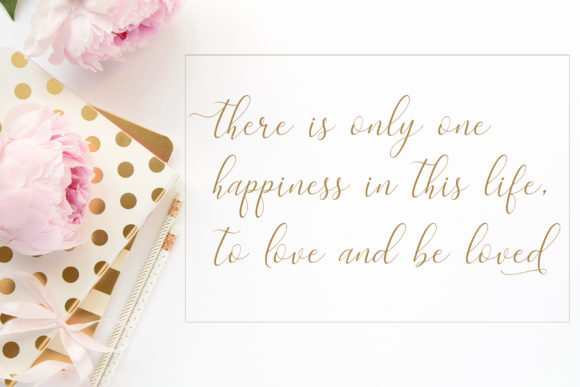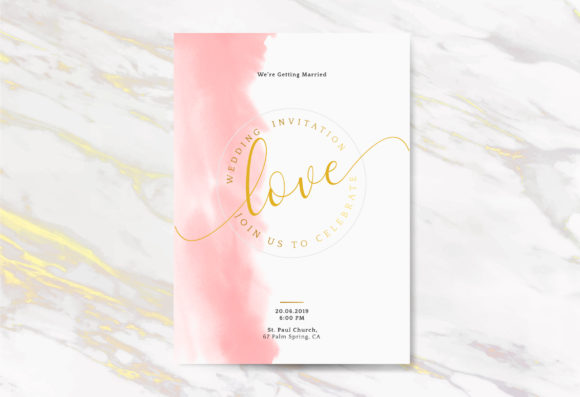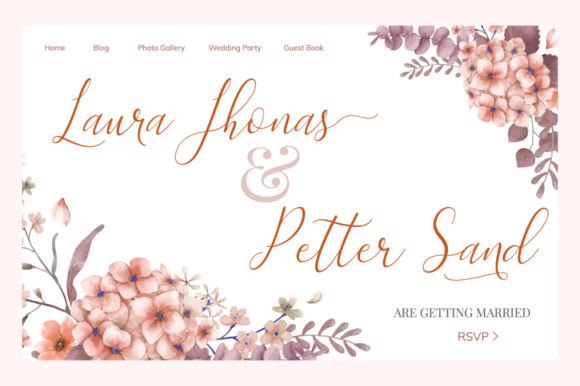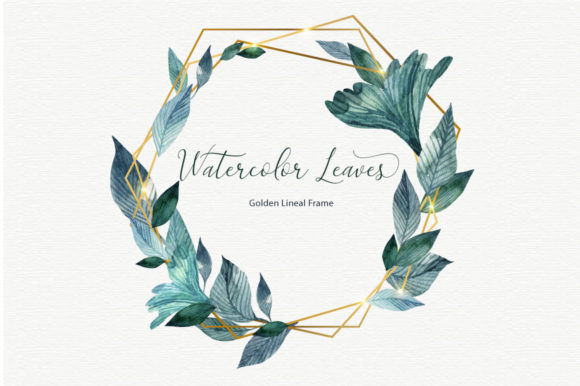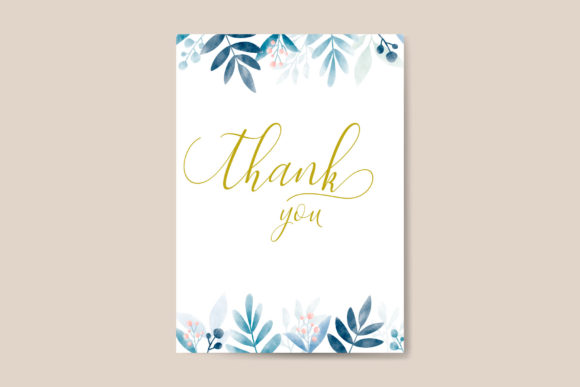
Introduction to Lieselotte Script Font
As designers, we’ve all been there – staring at a blank canvas, searching for the perfect font to bring our creative project to life. The search can be tedious, but what if we told you that we’ve found the perfect solution? Enter the enchanting Lieselotte Script Font, a beautiful blend of classic and modern styles that will elevate your designs to the next level.
With its unique dancing letters and imperfect style, the Lieselotte Script Font is a game-changer for designers. Its clean and simple design makes it perfect for a wide range of applications, from weddings and invitations to logos and packaging. Whether you’re working on a high-end design project or a simple creative endeavor, this font is sure to impress.
Key Features of Lieselotte Script Font
- High-quality, elegant script font perfect for creative projects, such as wedding invitations, quotes, or watercolor designs.
- Designed with a classic, handwritten feel, Lieselotte Script Font is perfect for adding a touch of sophistication to any design project.
Honest Review: Lieselotte Script Font
I recently had the chance to work with the Lieselotte Script Font, and I must say it’s been a game-changer for my creative projects. The high quality of this design resource is immediately apparent, with smooth lines and a beautiful, elegant feel.
- ✨ The font’s versatility – it’s perfect for a wide range of creative projects, from wedding invitations to book covers.
Overall, I’m really impressed with the Lieselotte Script Font. It’s a high-quality design resource that’s perfect for anyone looking to add a touch of elegance to their creative projects.
Tips for Getting the Most Out of Lieselotte Script Font
Experiment with different font sizes and colors to create a visually appealing design. Combine the Lieselotte Script Font with other fonts to add depth and variety to your creative project.
The Lieselotte Script Font is ideal for wedding invitations, greeting cards, and other creative projects that require a touch of elegance and sophistication. Its high-quality design makes it a popular choice among designers and artists.